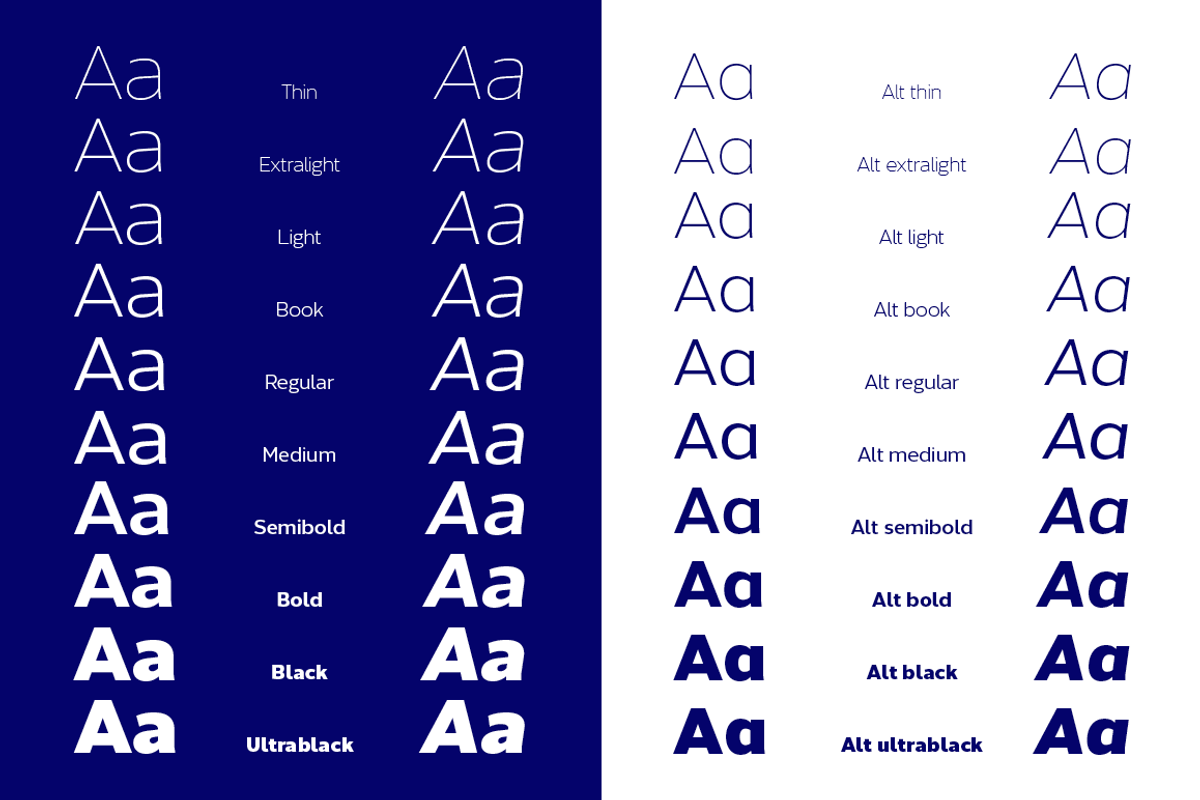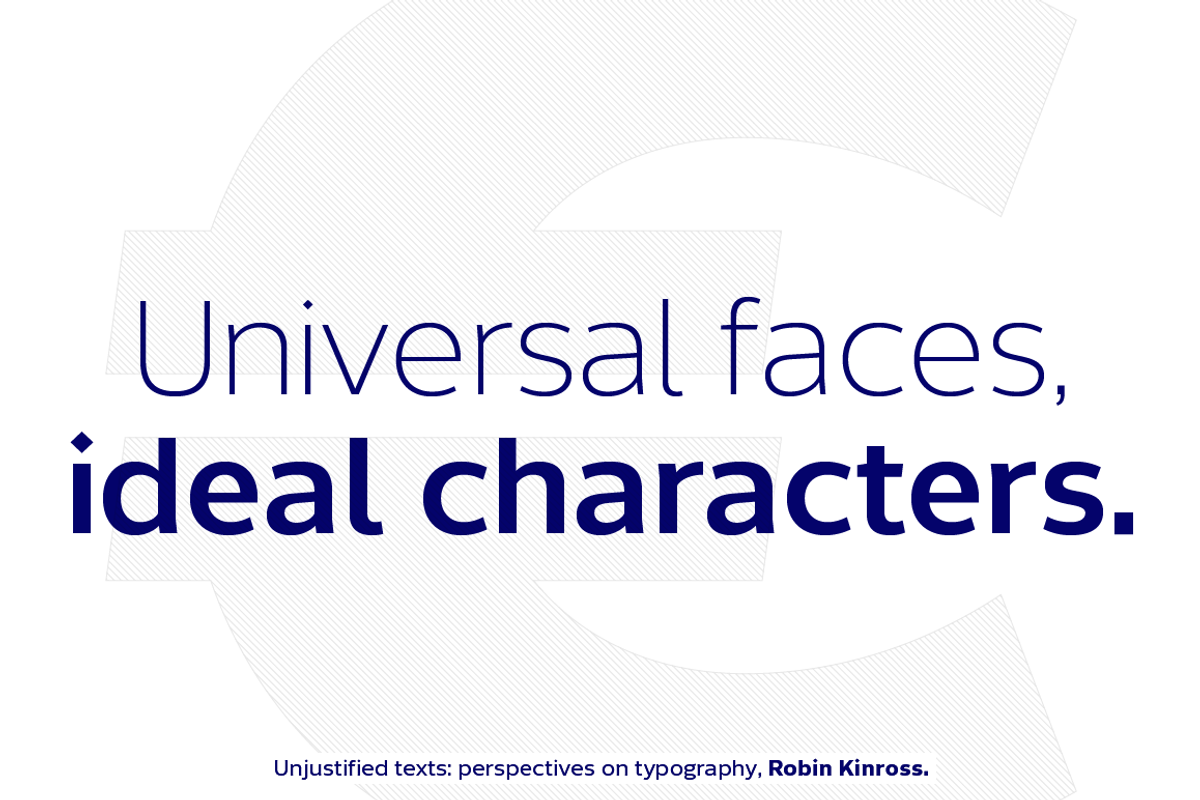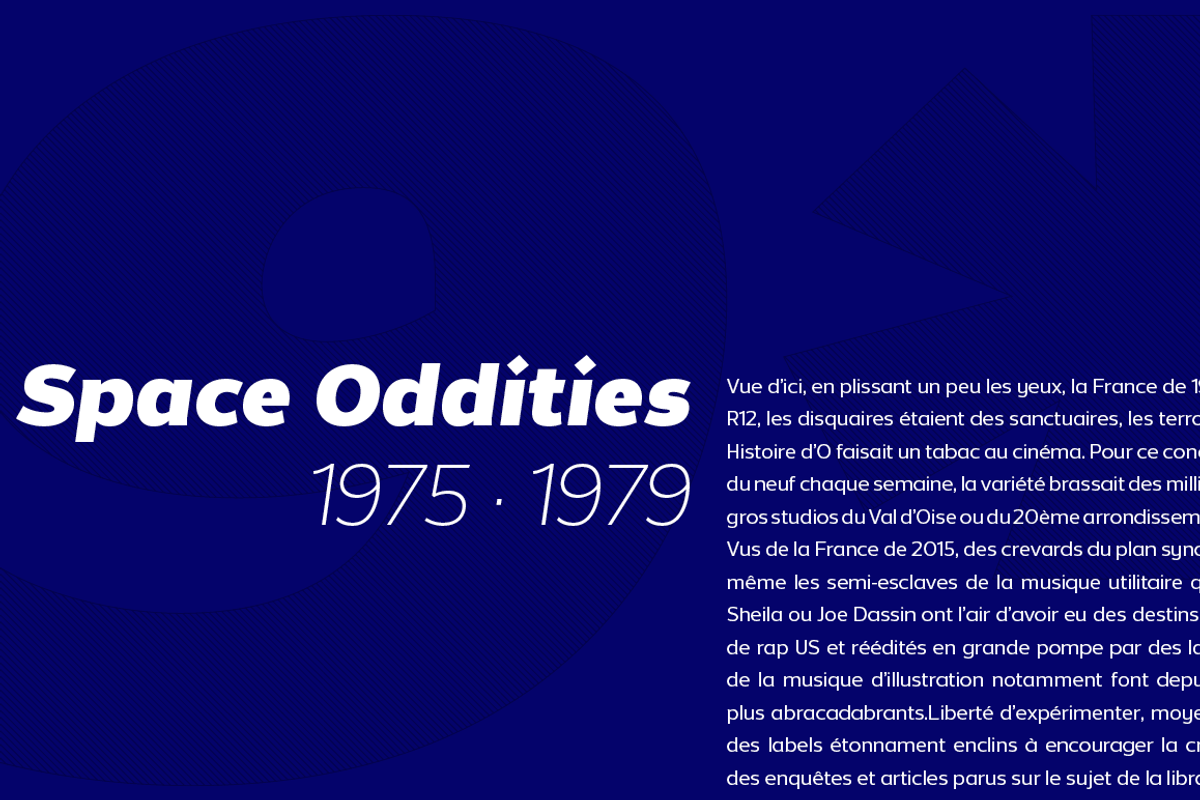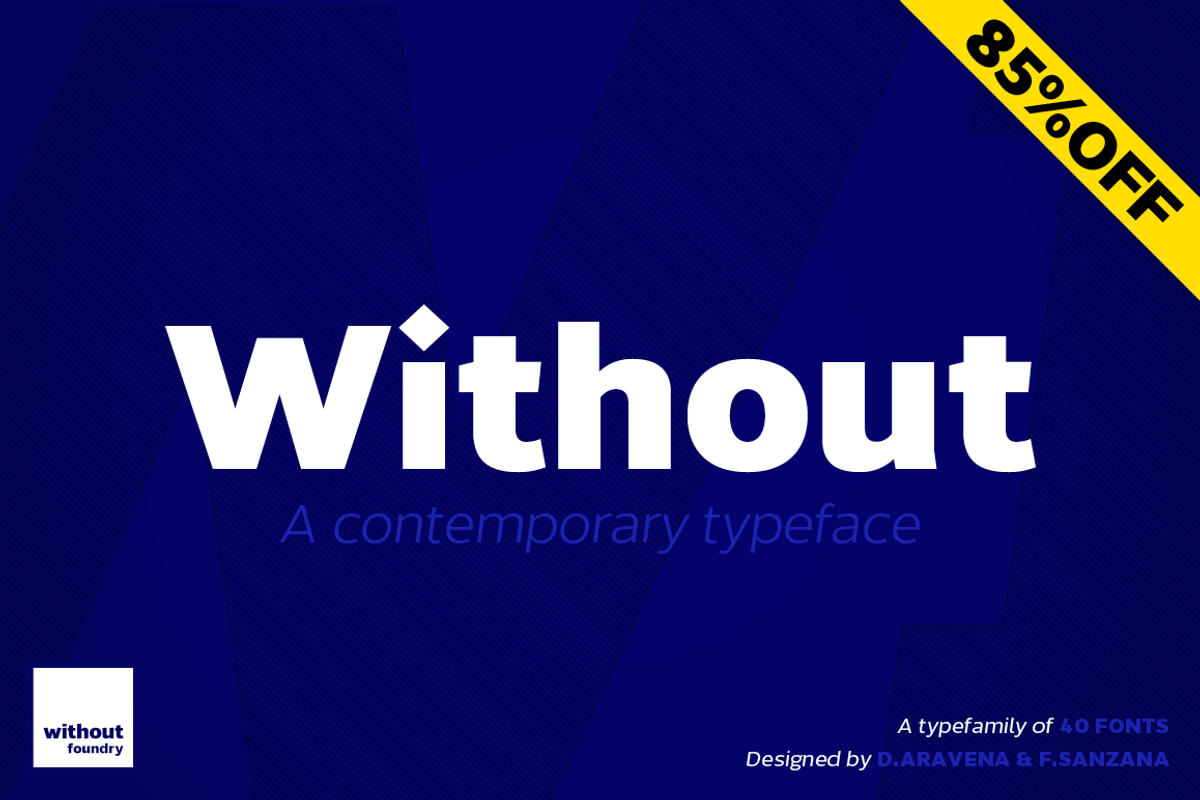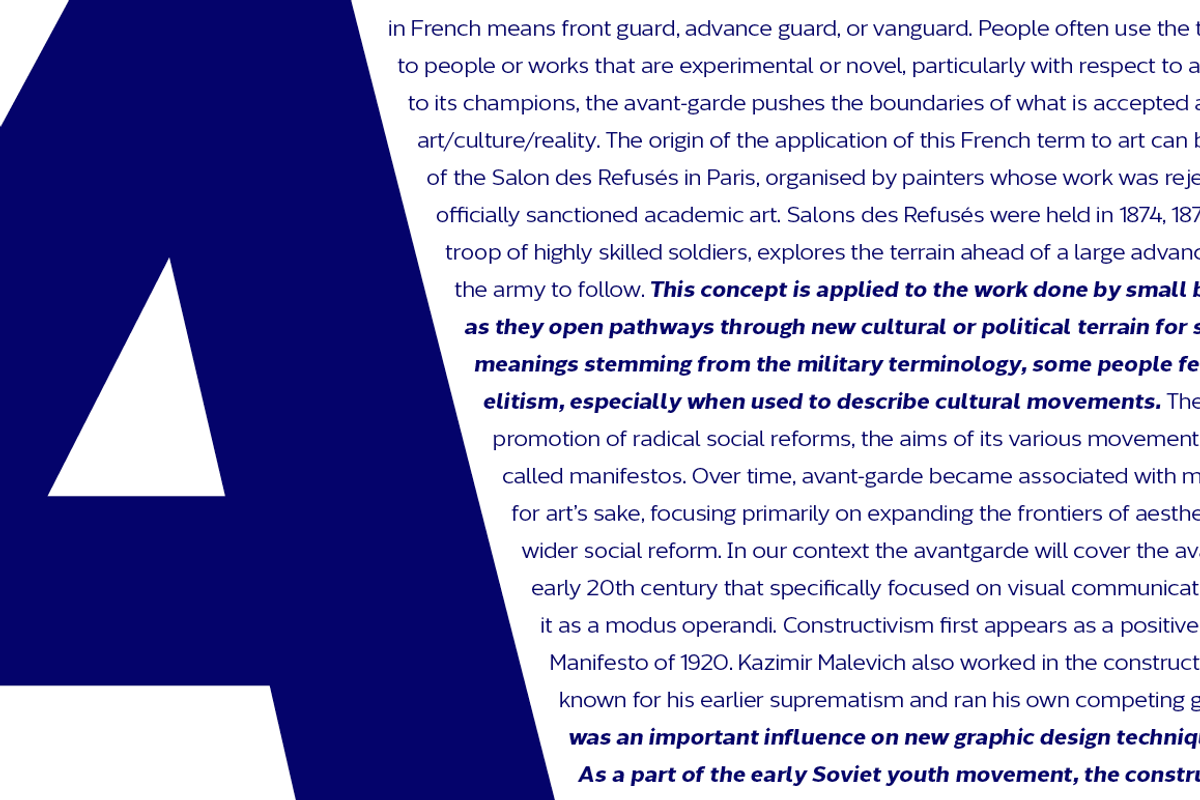
Without Sans is a new geometric sans serif of 10 weights plus matching italics and alt family. It was designed by Felipe Sanzana and Diego Aravena, the founders of “Without Foundry”, in 2014/15. It is inspired by the geometric-style sans serif typefaces that were famous during the 50s. The fonts are based on the geometric forms with a mix of grotesque typefaces. The opentype fonts have an extended character set to support Central and Eastern European as well as Western European languages.
It is perfectly suited for highlighting lettering, magazines, web, interaction design, advertising, logotypes, etc.